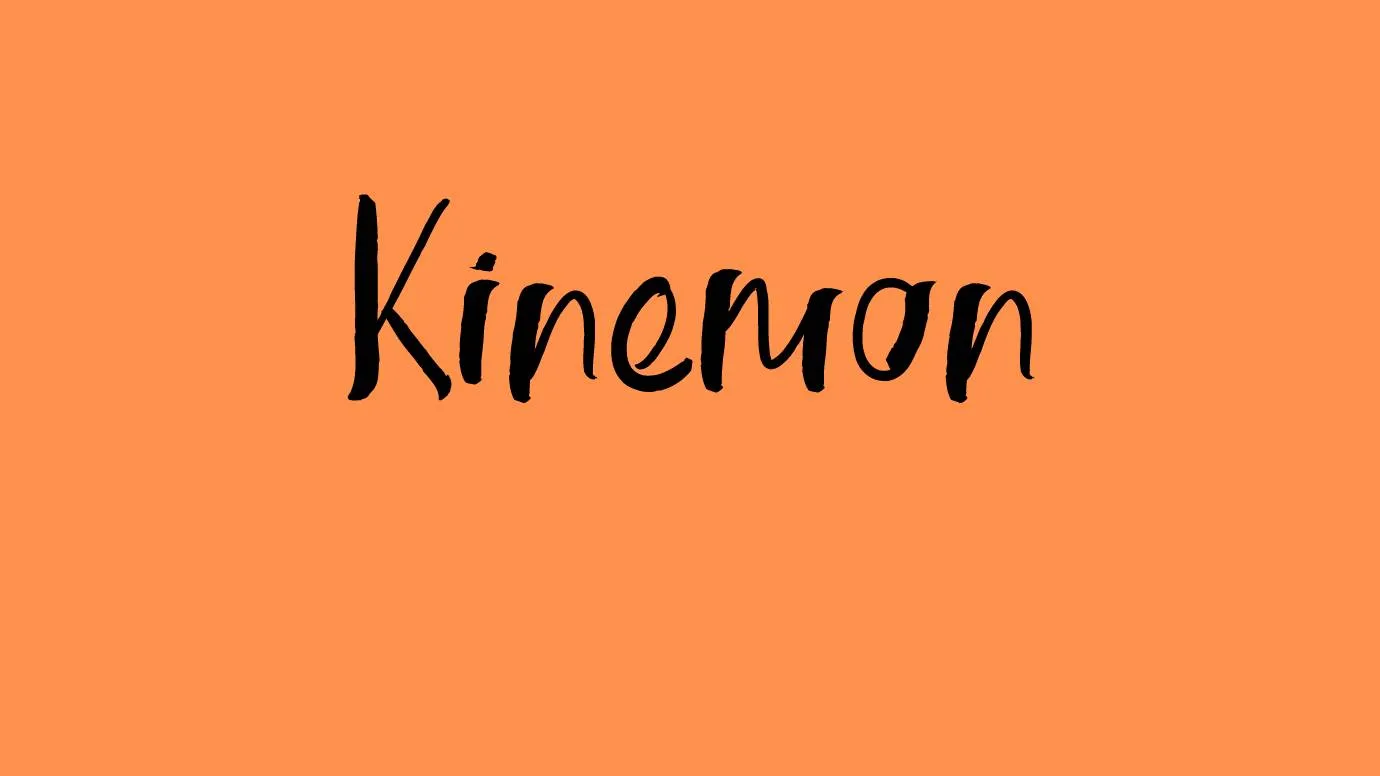
Kinemon Font Family is a very attractive brush-type font. It was designed by Wahyu Setiya Rahmawan. You can make so many interesting projects by using this font. It has three different styles and it supports many international languages also.
You can also easily use this typeface for pairing with fonts such as art brush font so you can give a more eye-catching look to your projects.
Kinemon Font